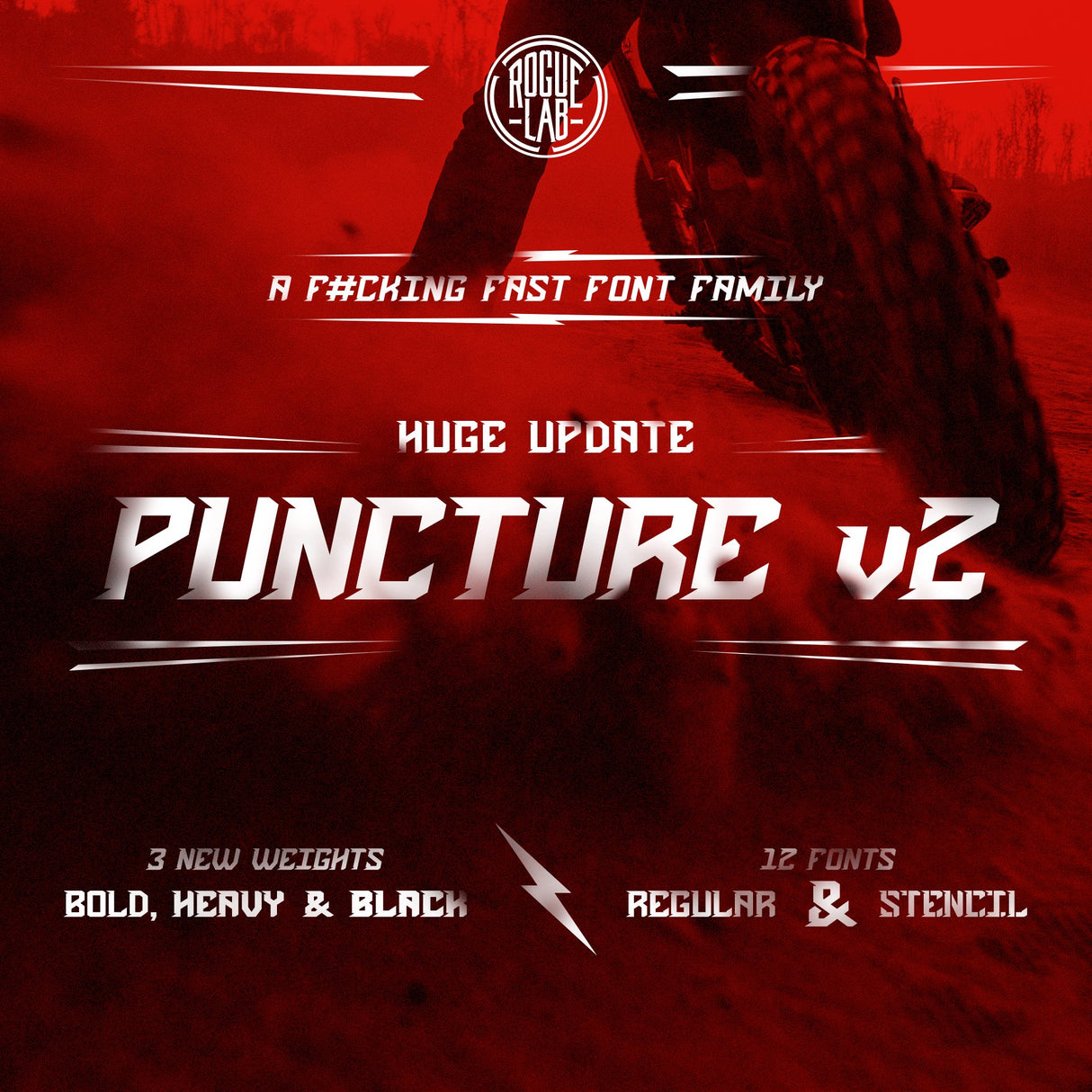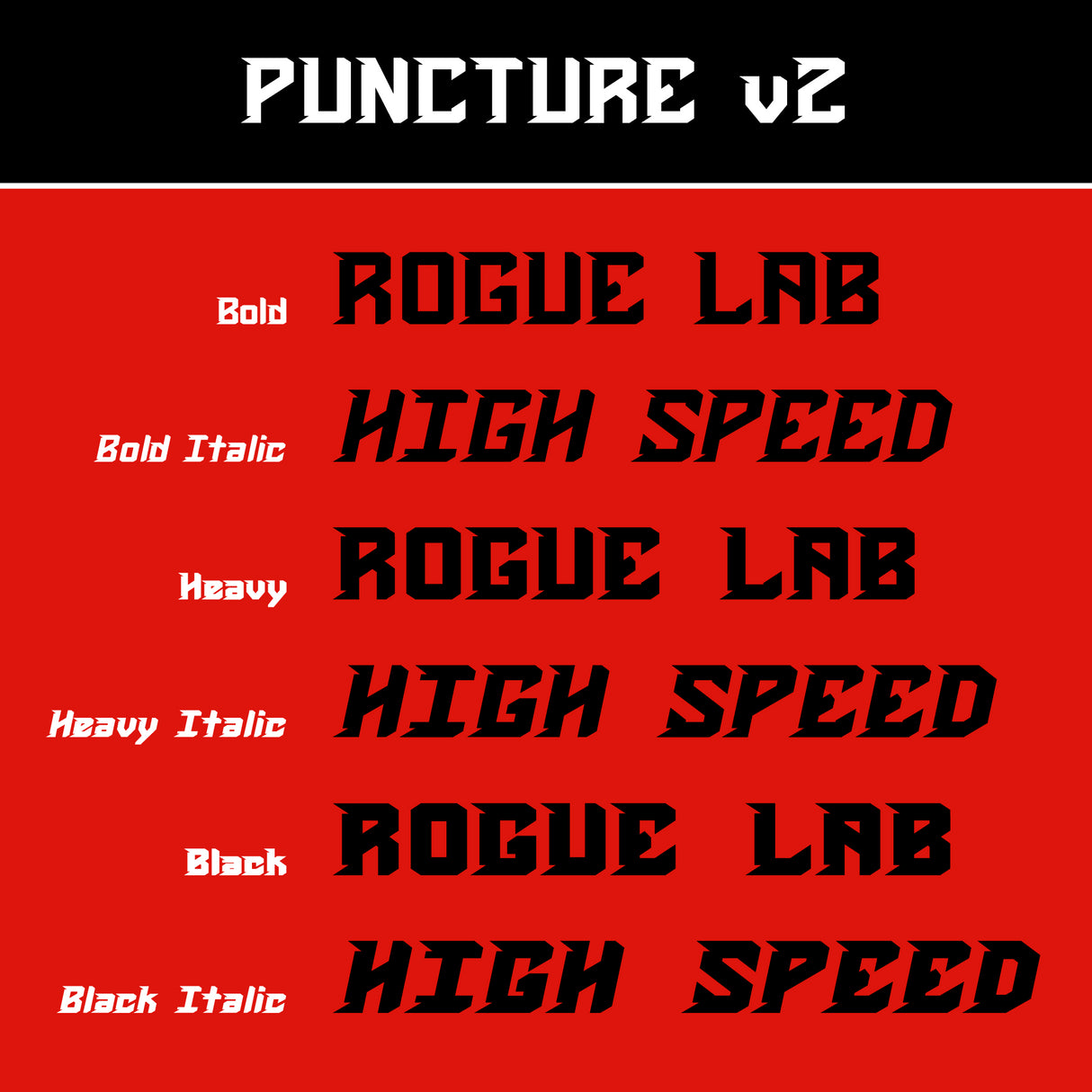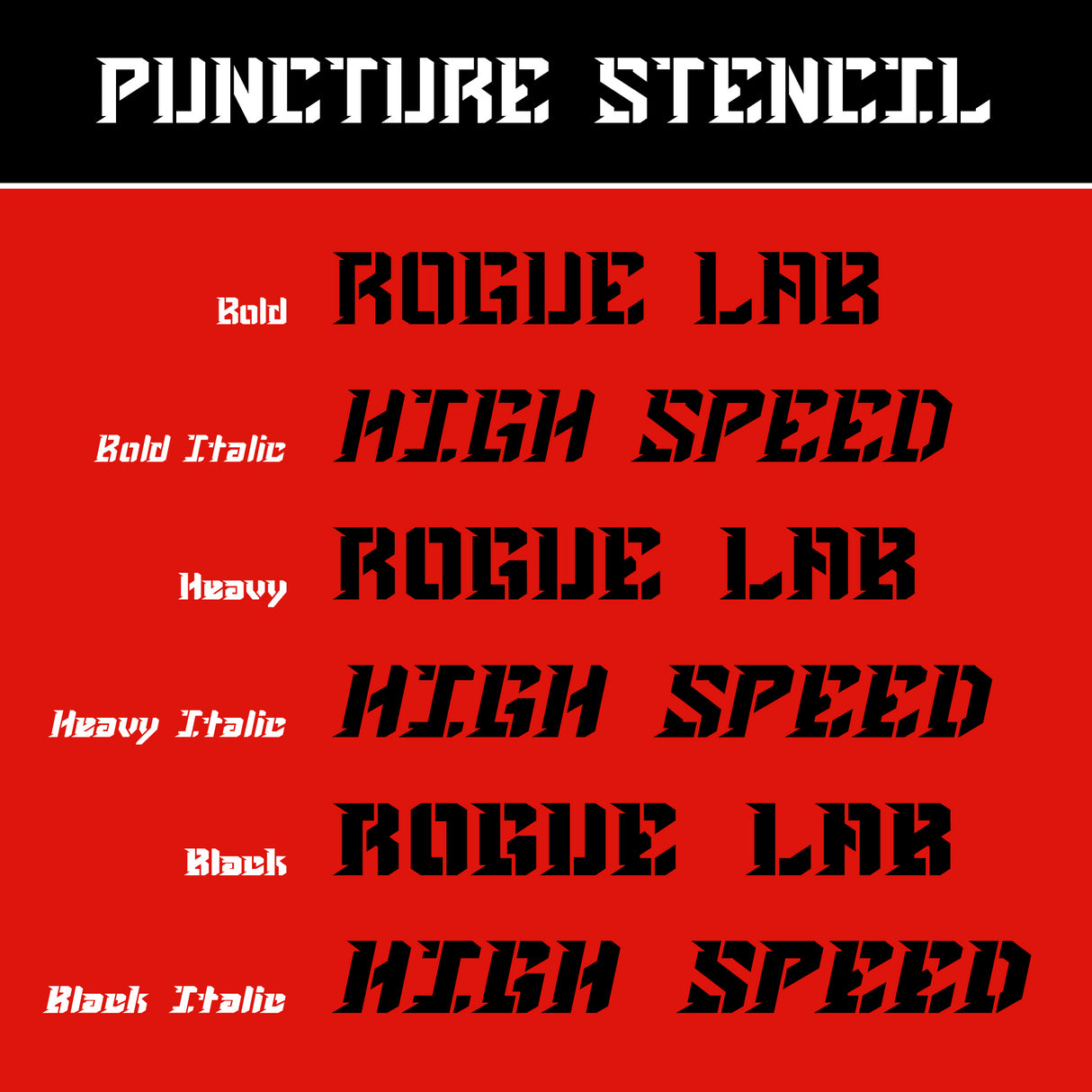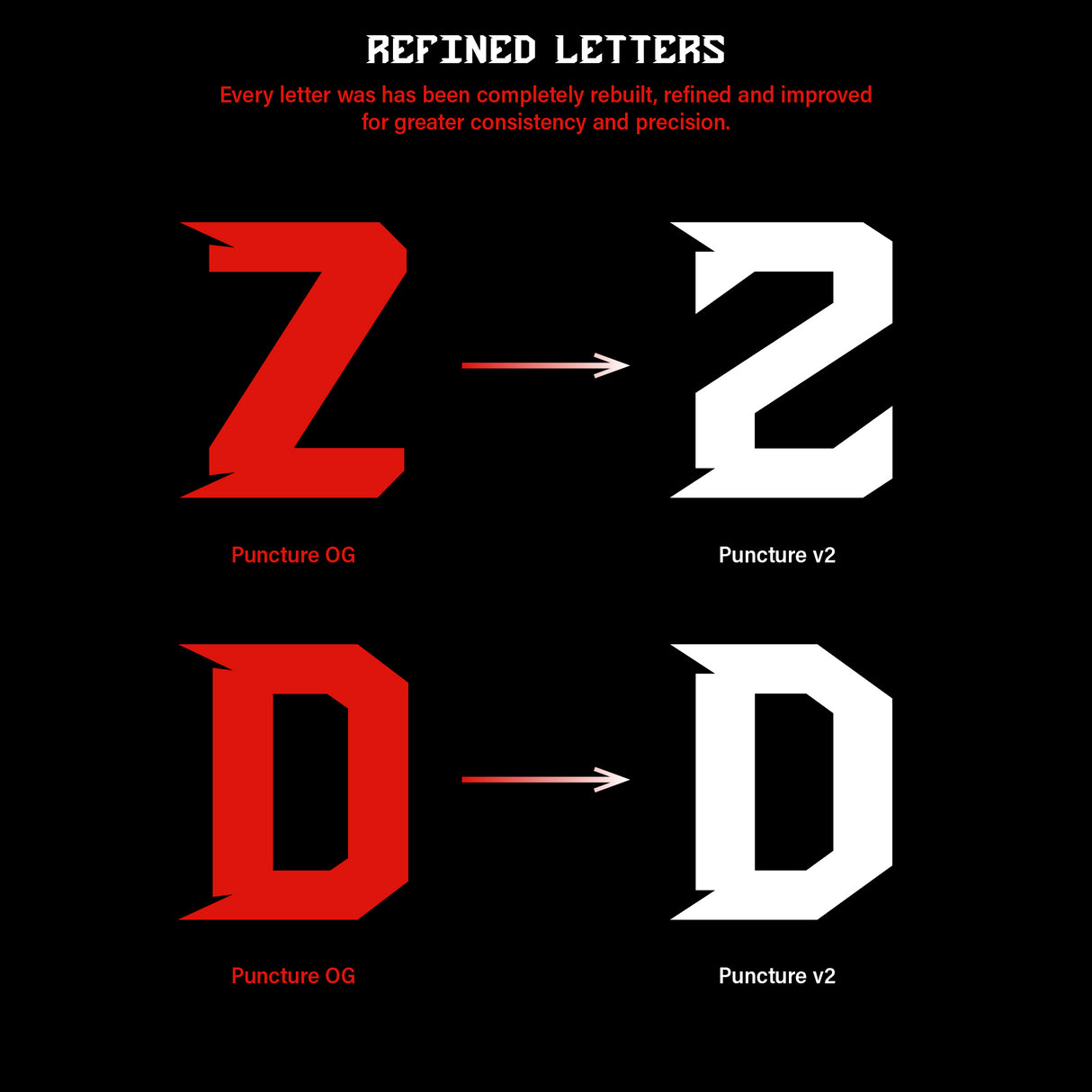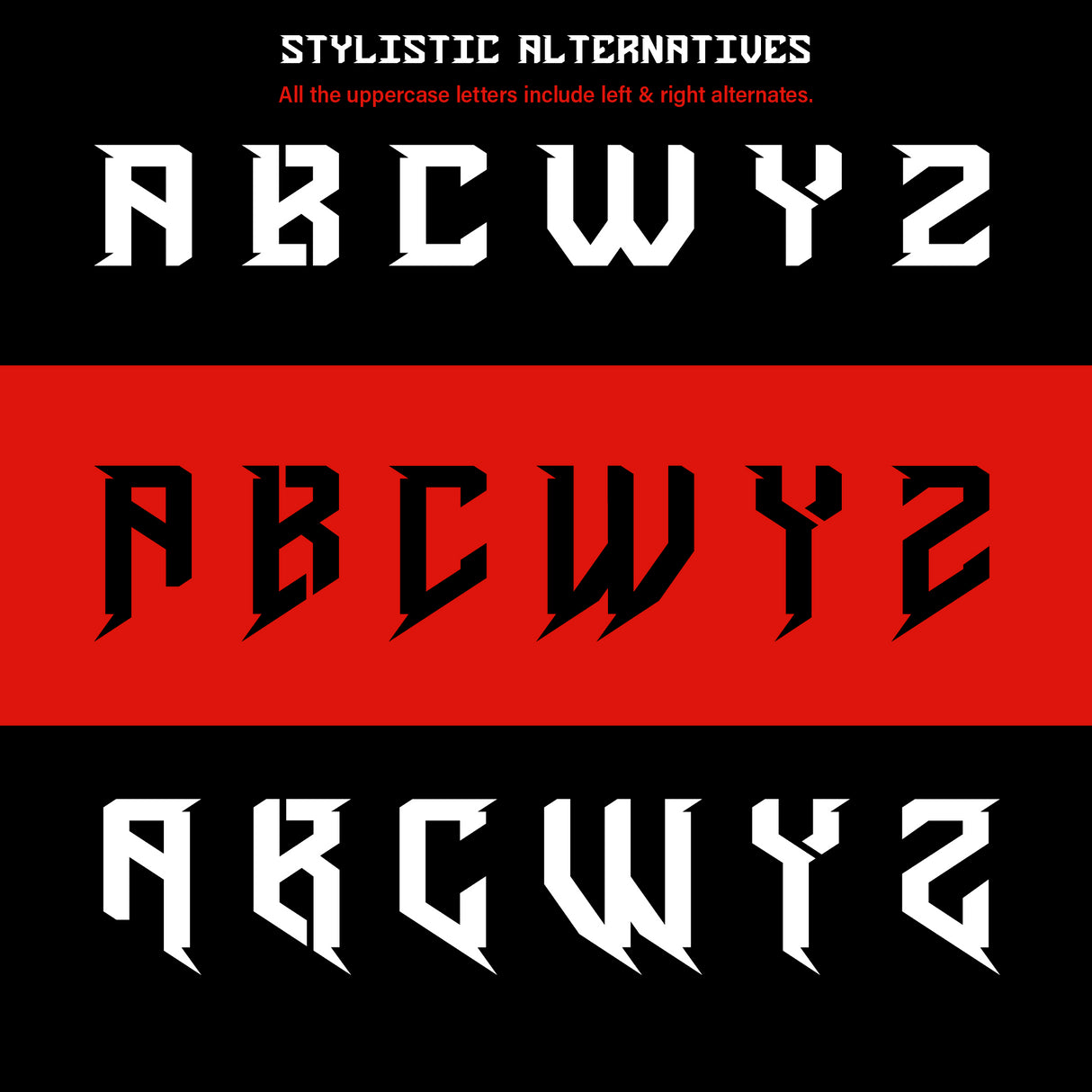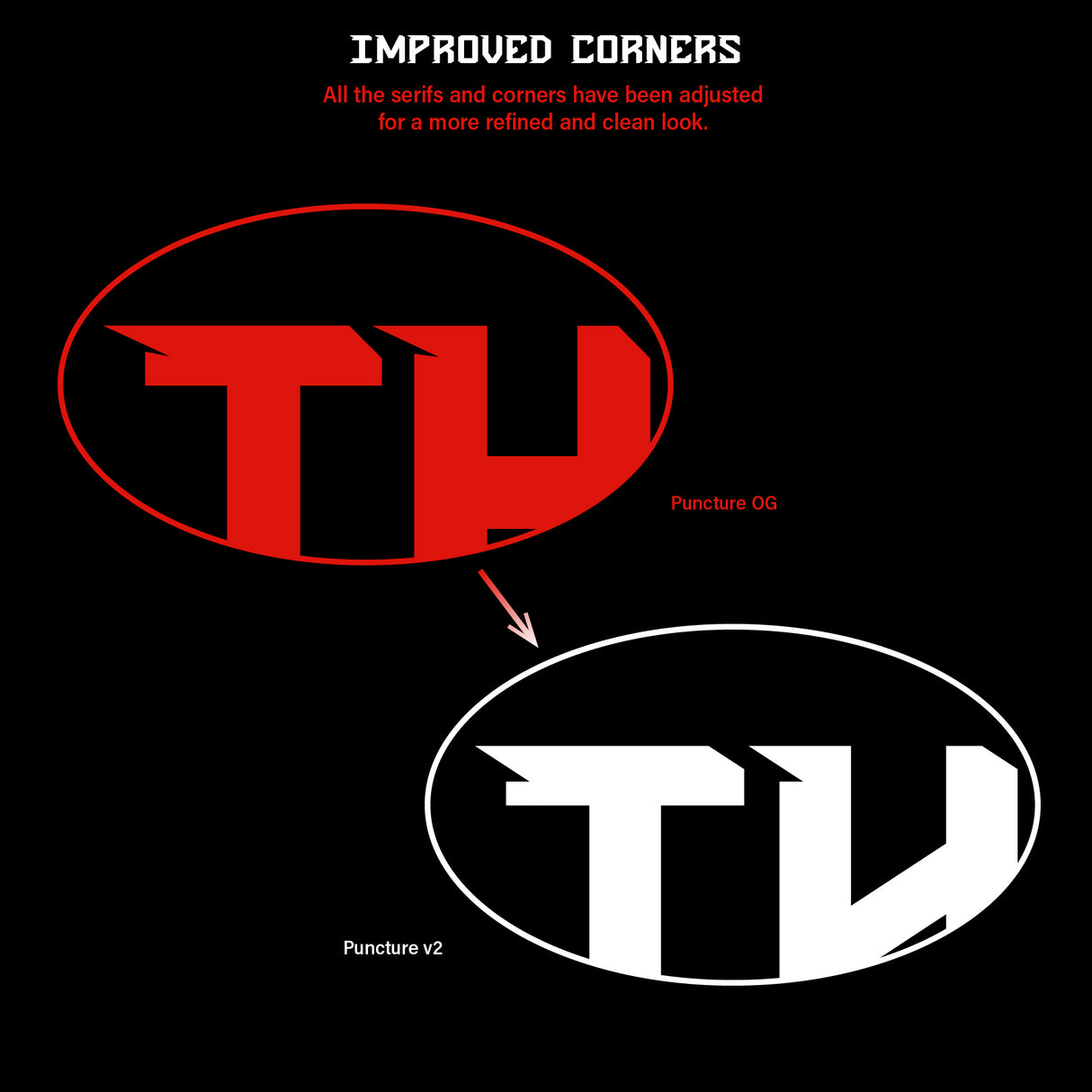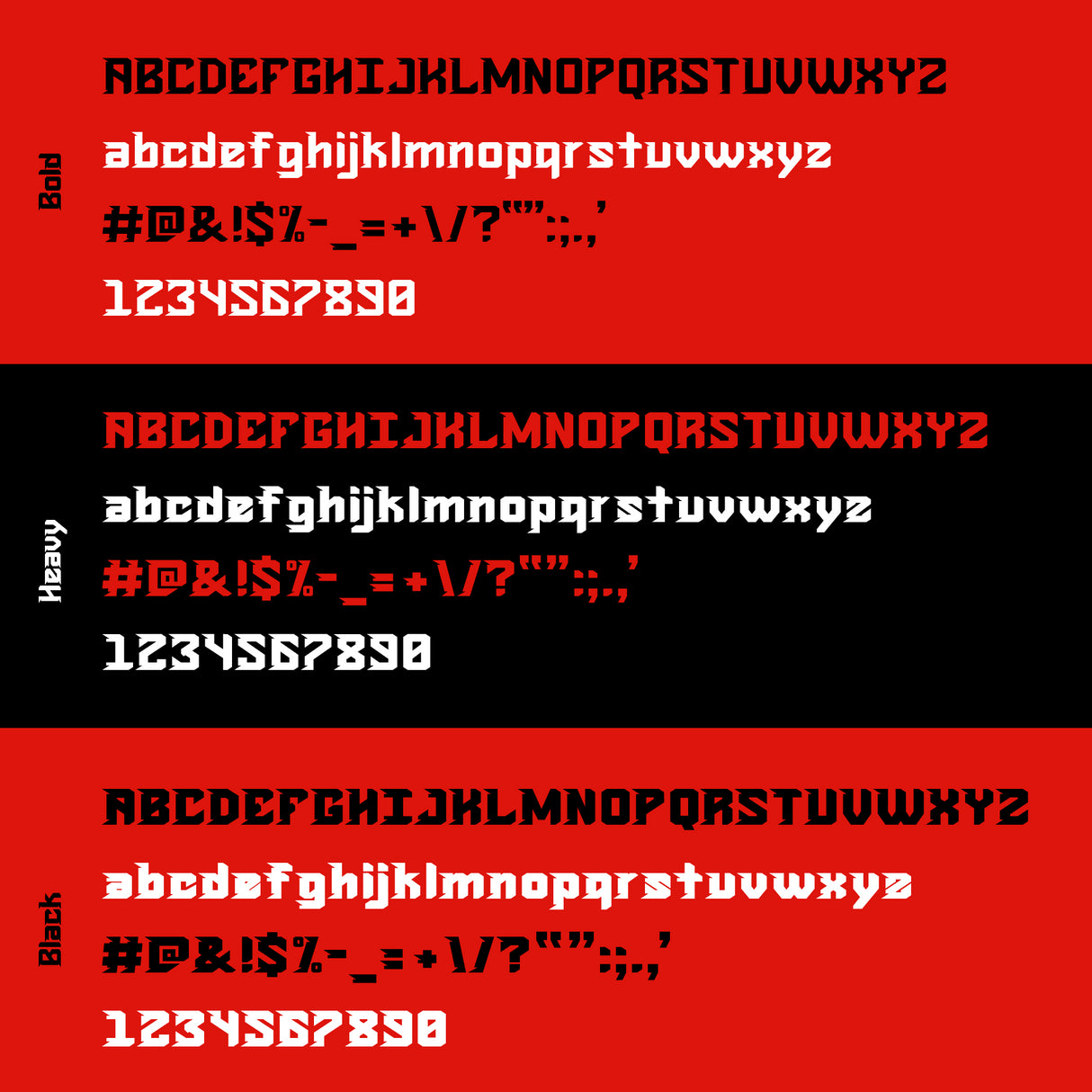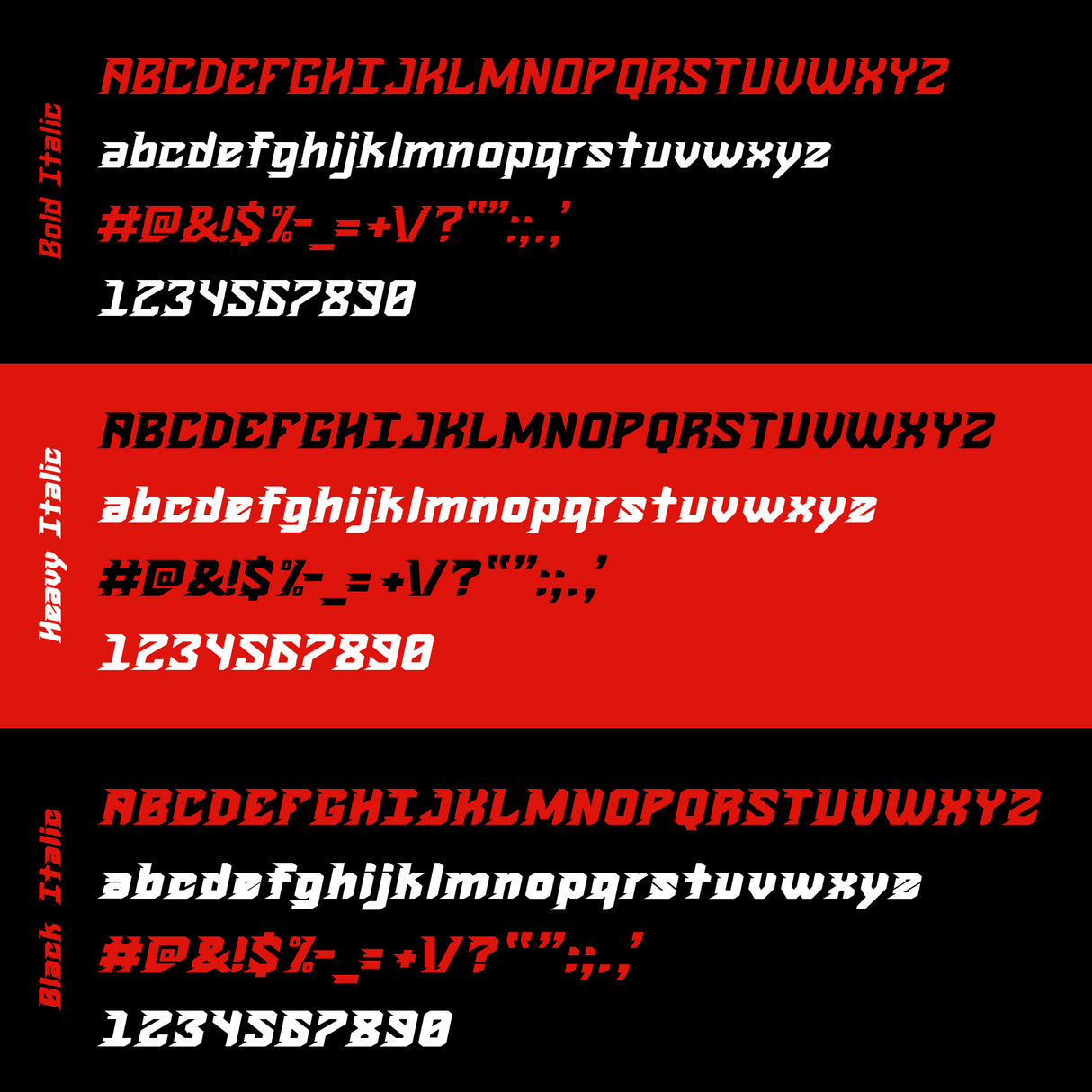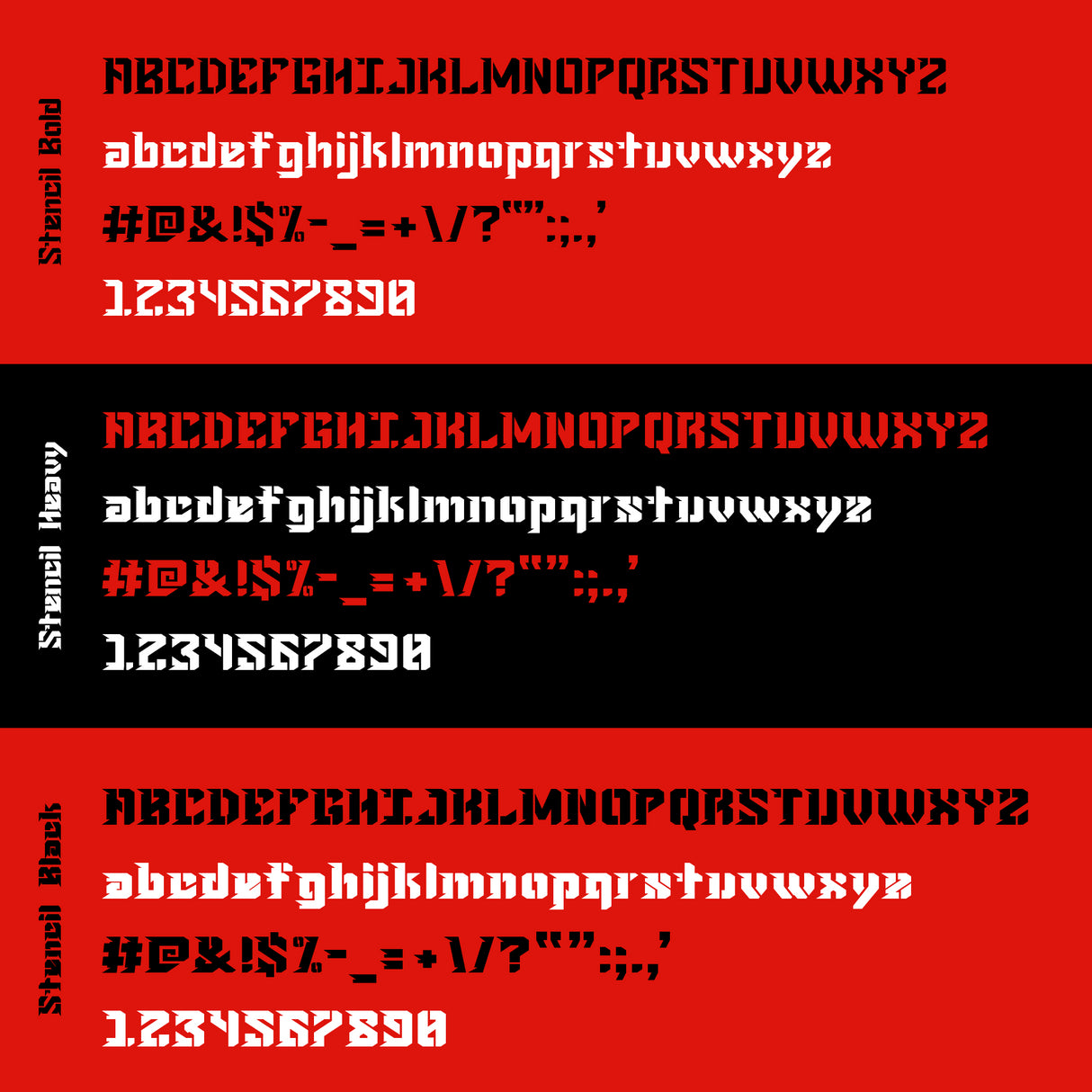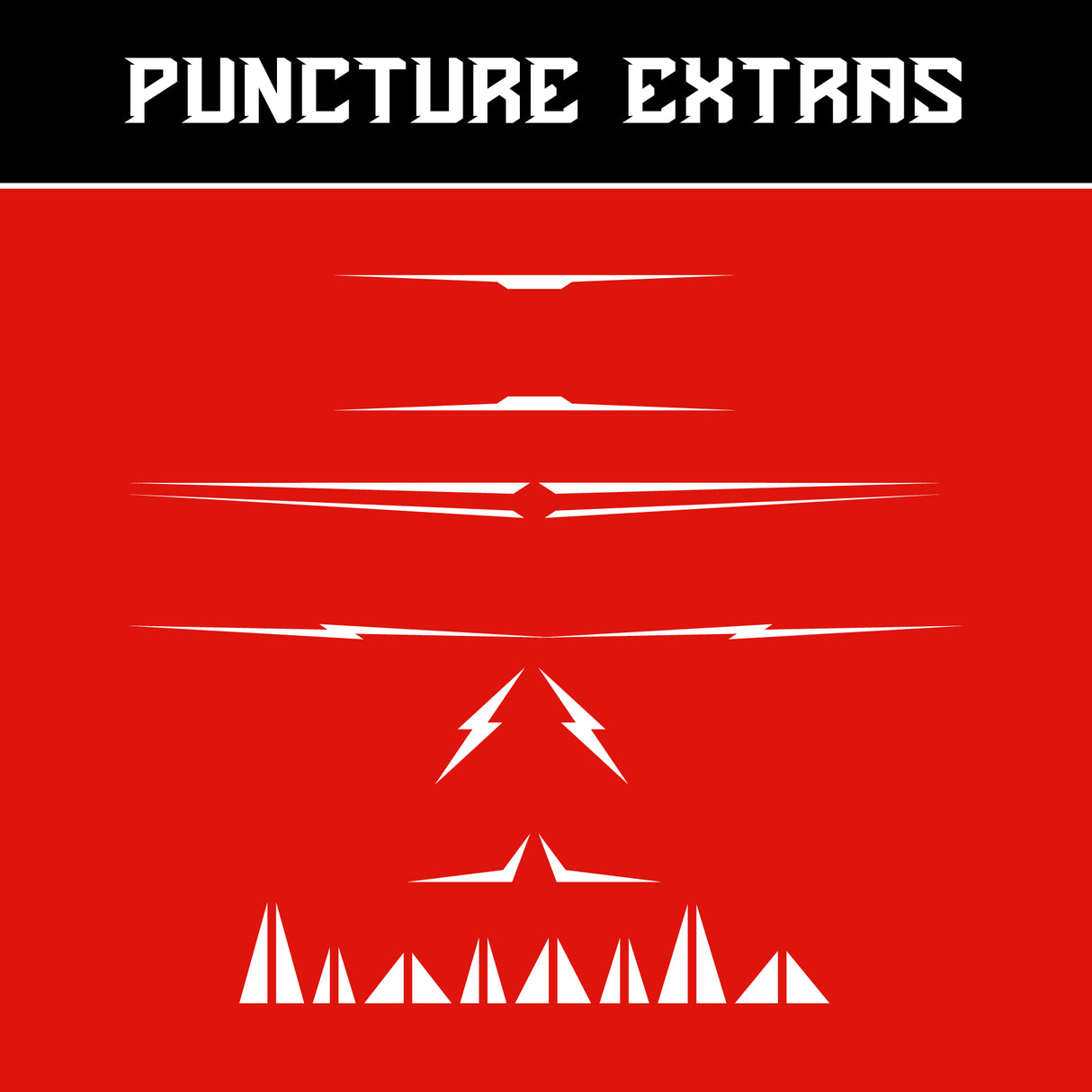
A high-speed, bold, and hardworking display typeface. Puncture is best used in headlines, logos, branding, and other large format types.
We've completely rebuilt Puncture from the ground up with newly refined letters, improved corners, three new weights (bold, heavy, black), new lowercase letters, and a complete stencil version. All of this has turned Puncture into a family of 12 fonts in total! We've included multiple alternate styles and extra vector shapes to aid in your design projects and make this a complete logo-building asset all within one font!
FEATURES
• 3 New Weights: Bold, Heavy & Black
• New Lowercase Characters
• Additional Complete Stencil Version
• Regular & Italics
• New Numerals & Primary Punctuation
• Multiple Alternate Styles
• Extra vector shapes